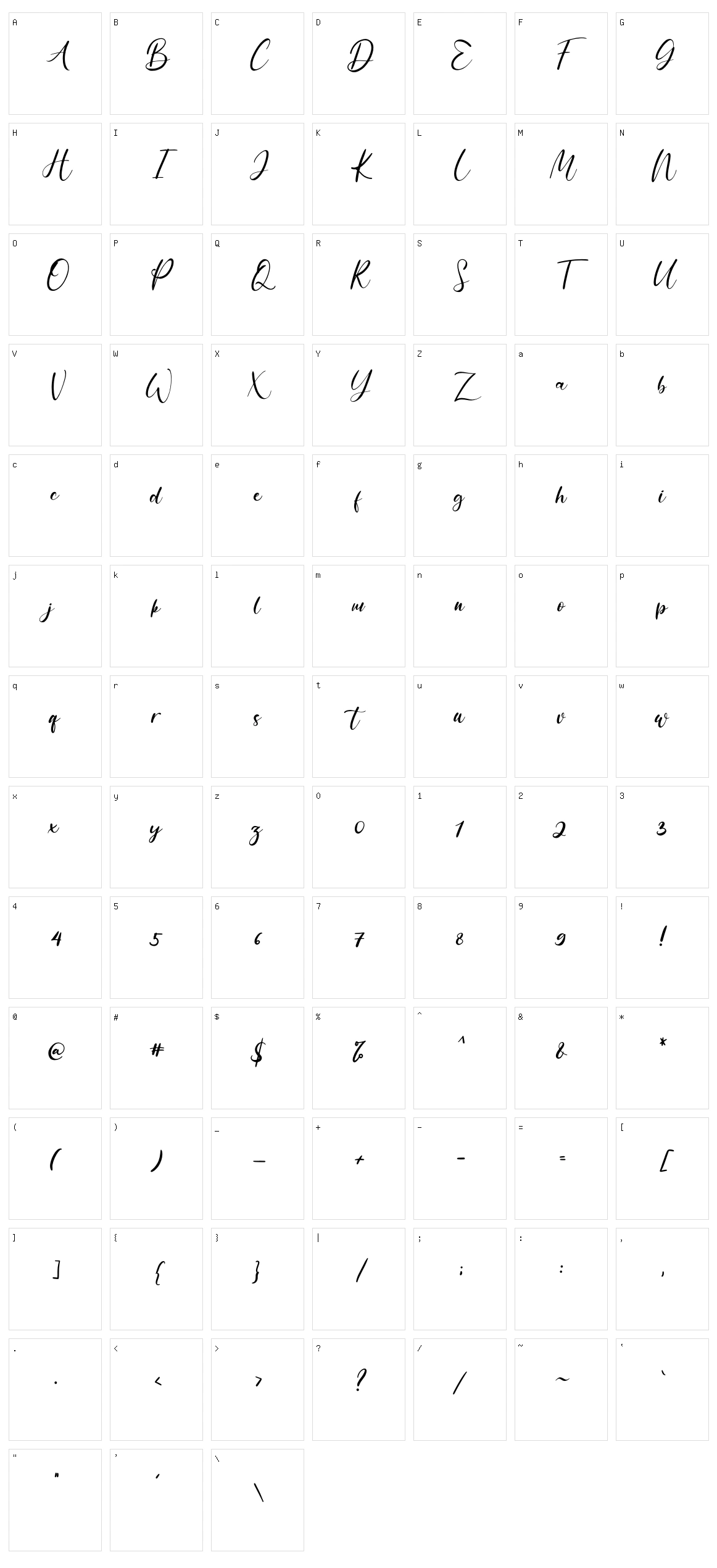
The free font Anythings is carefully designed by StringLabs Creative Studio, showcasing a thoughtful balance of creativity and usability and falls under the Script font style. When you download the ZIP file, it contains only 113.43 KB of font files, making it lightweight and quick to download. Please review the license details below to understand permitted usage and distribution rights. If license information is not available, we recommend using this font for personal projects only or contacting the author directly for commercial usage permissions.